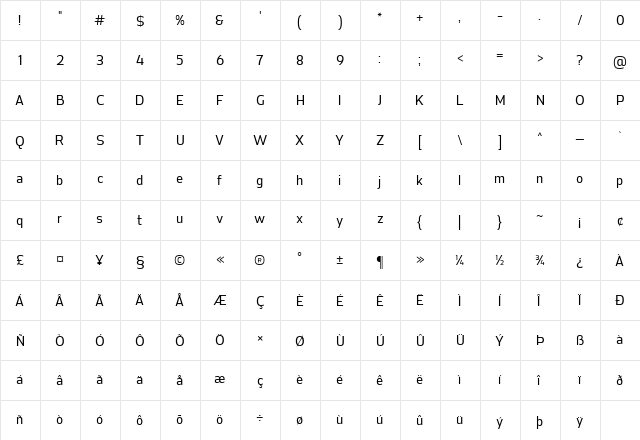
Jipatha Regular
Design Context for Jipatha Typeface
Jipatha offers clean, dependable letterforms without strong stylistic allegiance, making it a practical choice for designers who need flexibility.
Pro Tip: Use Jipatha in both headline and body roles to test its range before committing to a single application.